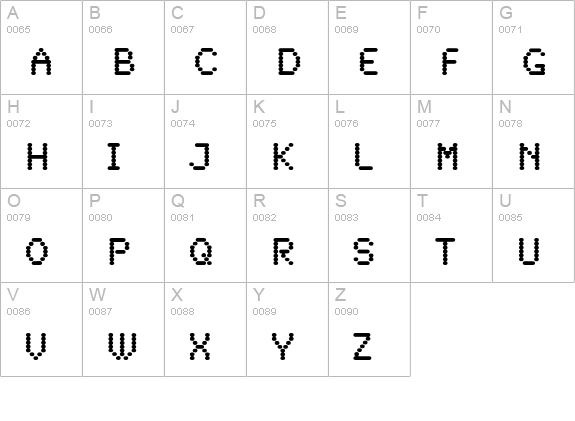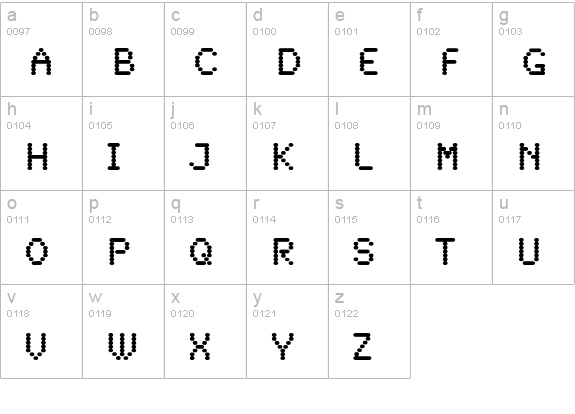
SynchroEF-Alternate Font Details
SynchroEF-Alternate font is a modern and stylish typeface that exudes elegance and sophistication. Its alternate characters add a unique touch to any design, making it stand out from the crowd. This versatile font is perfect for a wide range of projects, from branding to editorial design. Best of all, SynchroEF-Alternate font is completely free to download at FontsMarket.com. Whether you're a designer looking to add a fresh twist to your work or a business owner in need of a professional font for your marketing materials, SynchroEF-Alternate font has got you covered. Don't miss out on this amazing opportunity to enhance your projects with this fantastic font – download it for free today!